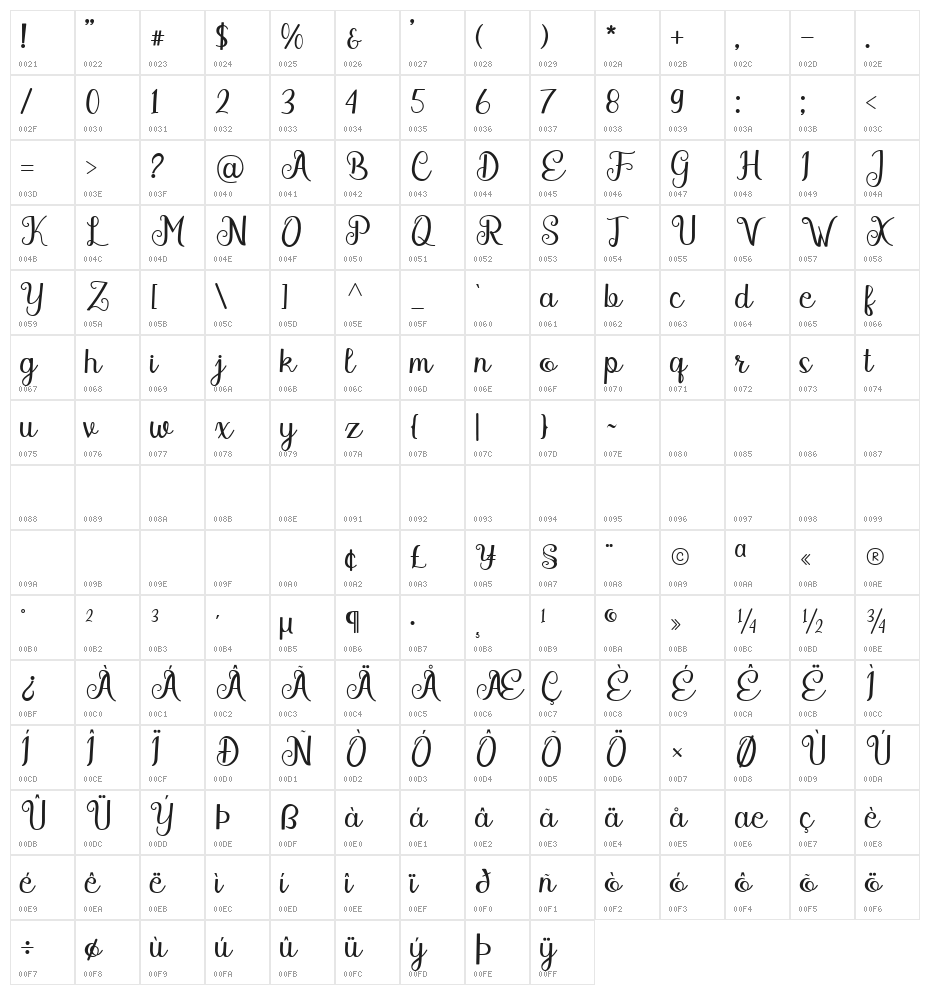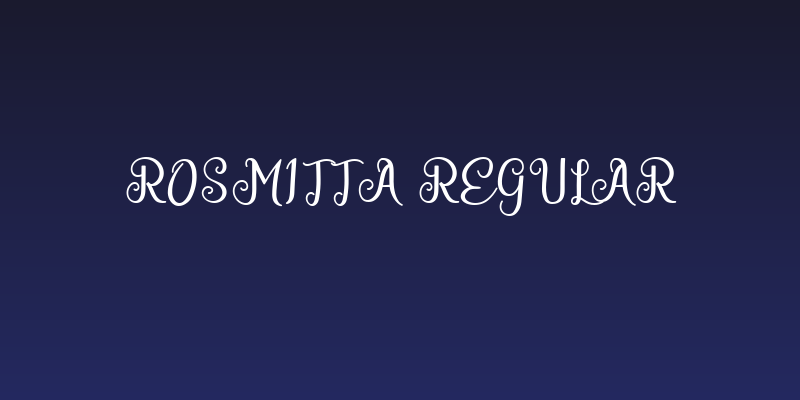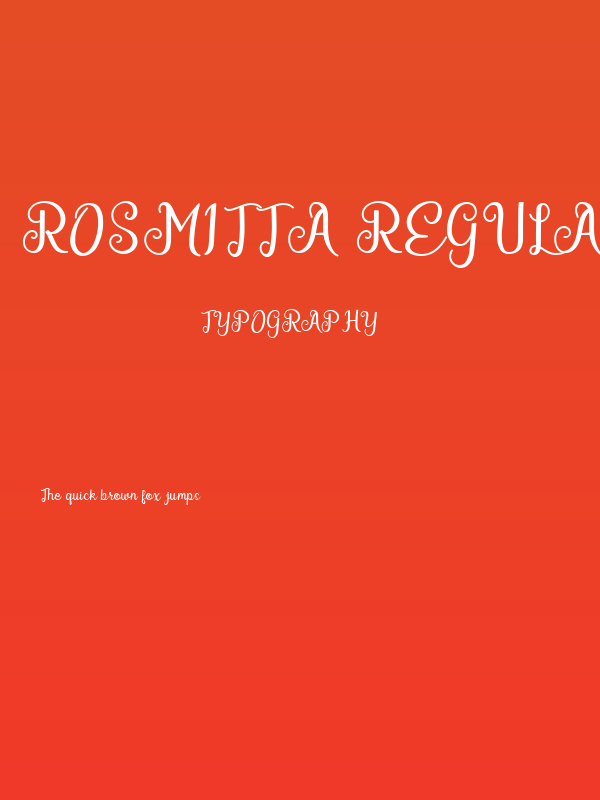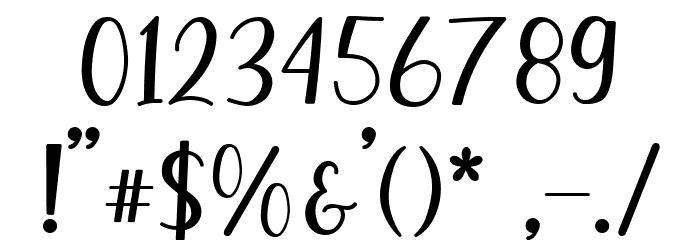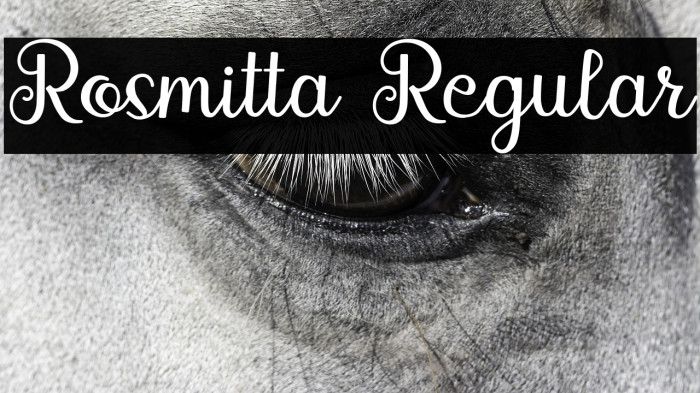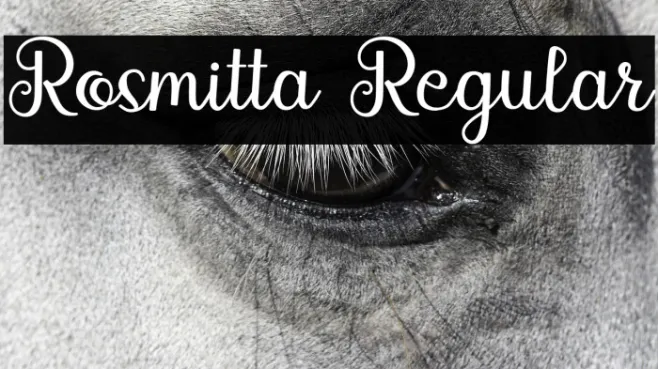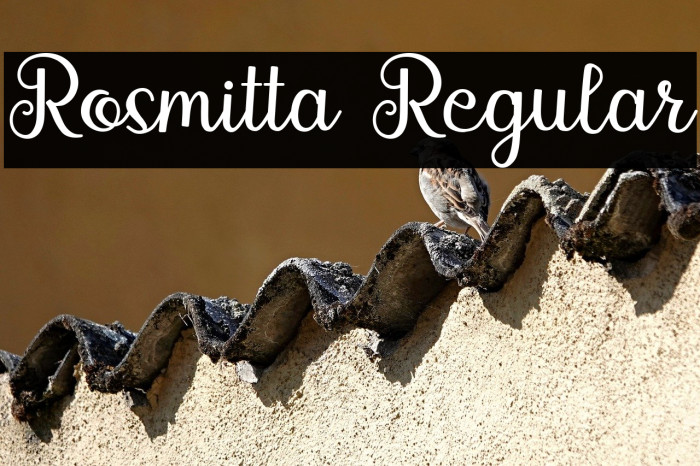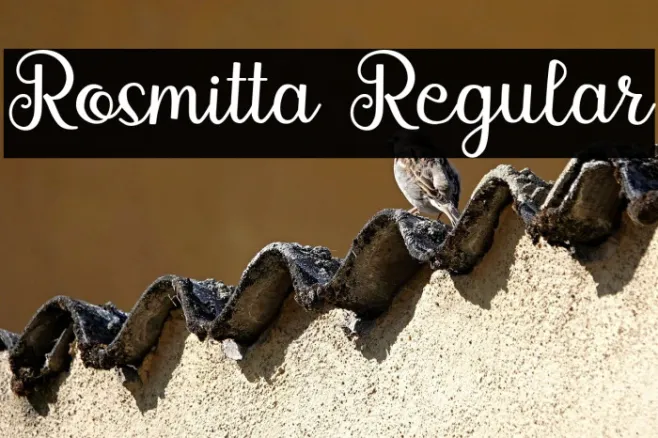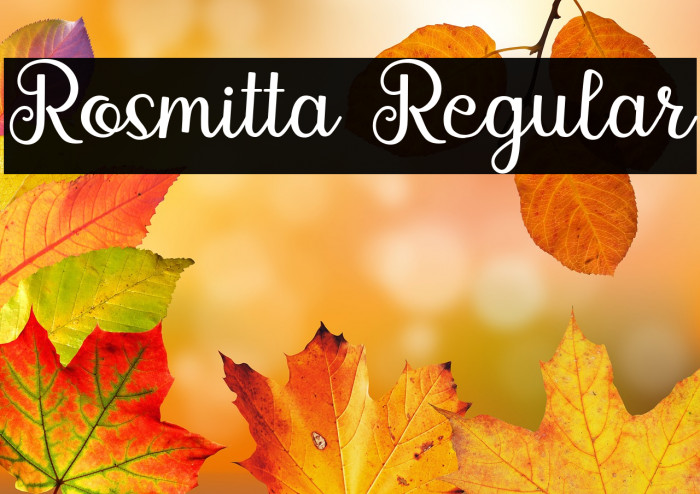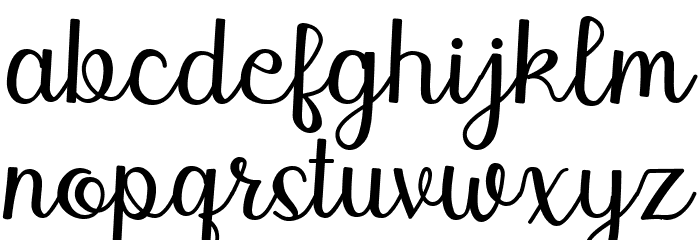
Rosmitta Regular Font
Rosmitta Regular Description
This font features a playful and elegant script style with a smooth, flowing appearance. The uppercase letters are characterized by their rounded forms and decorative loops, giving them a whimsical yet sophisticated look. The lowercase letters maintain a consistent style, with gentle curves and a slightly slanted orientation, enhancing the font's fluidity. Numbers and special characters are designed to match the overall aesthetic, ensuring a cohesive appearance across all text elements. The font's design is both approachable and stylish, making it suitable for a variety of creative applications.
| Use Case | Logos, Invitations, Headlines |